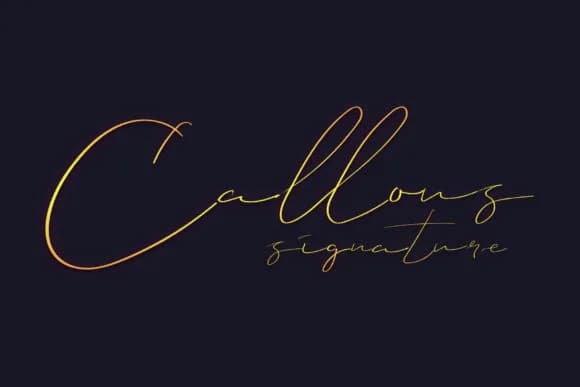
Callous Font by Gumacreative is an elegant script typeface that combines genuine handwritten character with refined proportions. The design bridges the gap between personal authenticity and professional polish, making it an excellent choice for brands seeking to express personality without compromising credibility. Its flowing letterforms showcase careful attention to detail while maintaining an approachable, organic quality that resonates with discerning audiences.
This sophisticated script excels in luxury product packaging design, where visual elegance communicates brand sophistication and value to customers. It's equally effective for wedding stationery suites that demand refined handwritten charm, upscale beauty brand identities where aesthetic refinement shapes purchasing decisions, and restaurant menu design where culinary ambition deserves matching typography. The font also delivers impact in boutique business card projects, custom social media graphics, and bespoke signage applications where hand-crafted qualities differentiate your work from generic design solutions. Each application benefits from the typeface's ability to convey artisanal quality and personal attention.
The consistent letterforms and balanced spacing ensure Callous performs reliably across various applications and sizes. Whether developing complete brand identities or enhancing individual projects, this elegant script provides the distinctive personality that sophisticated clients recognize and value. Discover Callous Font on Creative Fabrica and bring refined elegance to your next design project.
Callous Font is a script font that shines as a display or heading face. Pair it with a clean sans-serif or serif font for body text β the contrast creates a clear hierarchy while the two styles stay balanced and easy to read.
Callous Font